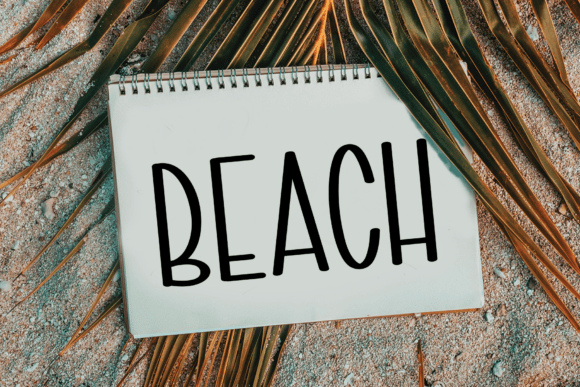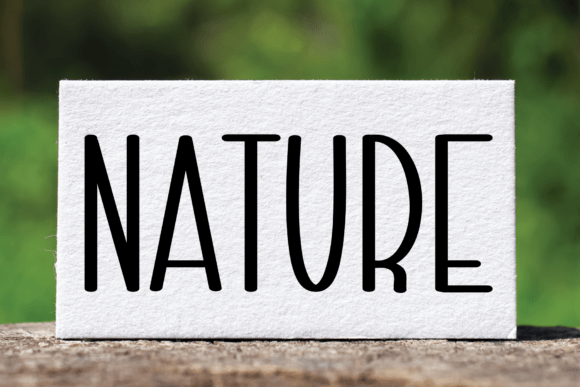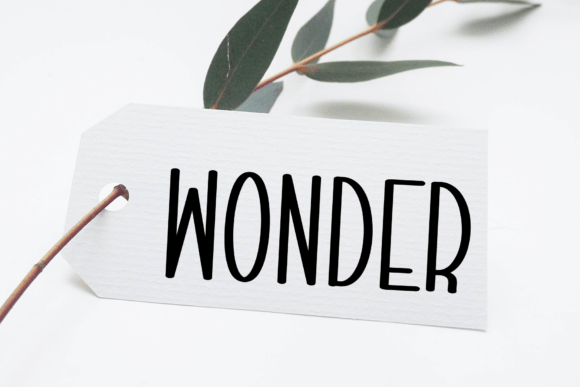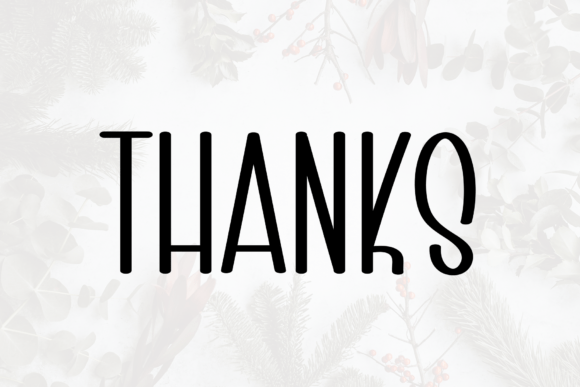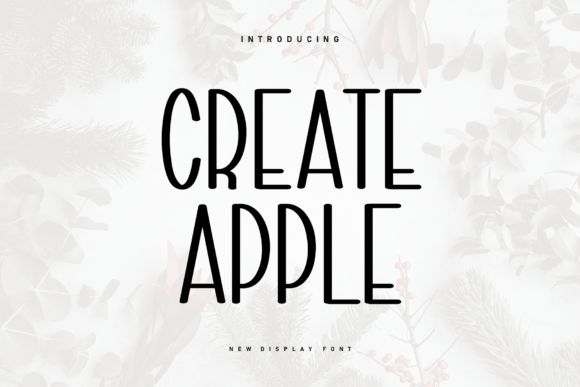
Create Apple Font: A Sweet and Beautiful Handwritten Font
Create Apple is a sweet and beautiful handwritten font that can add a cozy accent to any design project. Featuring characters that dance along the baseline, this font is perfect for designers and crafters who want to add a personal touch to their work. In this article, we’ll explore the features and benefits of Create Apple font, and provide tips on how to use it effectively in your designs.
What is Create Apple Font?
Create Apple font is a handwritten font that is designed to resemble the casual, yet elegant handwriting of a skilled artist. The font features characters that are carefully crafted to dance along the baseline, creating a sense of movement and fluidity. This unique feature makes Create Apple font stand out from other fonts, and gives it a distinctive charm that is hard to resist.
Features of Create Apple Font
• Handwritten style: Create Apple font is a handwritten font that is designed to look like it was written with a pen or pencil. This gives it a personal and informal feel that is perfect for designs that require a touch of warmth and personality.
• Dancing characters: The characters in Create Apple font are designed to dance along the baseline, creating a sense of movement and fluidity. This feature adds a playful and whimsical touch to the font, making it perfect for designs that require a bit of personality.
• Cozy accent: Create Apple font has a cozy and inviting feel that makes it perfect for designs that require a warm and welcoming touch. This font is ideal for designs that require a personal and informal feel, such as handmade crafts, DIY projects, and social media graphics.
Benefits of Using Create Apple Font
Create Apple font offers a range of benefits for designers and crafters, including:
• Unique and distinctive: Create Apple font is a unique and distinctive font that can help your designs stand out from the crowd. Its dancing characters and handwritten style make it a one-of-a-kind font that is sure to grab attention.
• Easy to read: Despite its playful and whimsical feel, Create Apple font is easy to read and understand. This makes it perfect for designs that require a clear and concise message, such as headings, titles, and captions.
• Versatile: Create Apple font is a versatile font that can be used in a range of designs, from handmade crafts and DIY projects to social media graphics and marketing materials.
Tips for Using Create Apple Font
Here are some tips for using Create Apple font effectively in your designs:
• Use it sparingly: Create Apple font is a bold and eye-catching font, so it’s best to use it sparingly to avoid overwhelming your design. Use it for headings, titles, and captions, and pair it with a simpler font for body text.
• Pair it with other fonts: Create Apple font pairs well with a range of other fonts, including sans-serif fonts, and script fonts. Experiment with different pairings to find the one that works best for your design.
• Experiment with colors: Create Apple font looks great in a range of colors, from bright and bold to soft and pastel. Experiment with different colors to find the one that works best for your design.
Create Apple font is a sweet and beautiful handwritten font that can add a cozy accent to any design project. Its unique features, such as dancing characters and a handwritten style, make it a standout font that is sure to grab attention. With its ease of use, versatility, and range of benefits, Create Apple font is a must-have for designers and crafters who want to add a personal touch to their work.
Whether you’re creating handmade crafts, DIY projects, or social media graphics, Create Apple font is the perfect choice. So why not give it a try and see how it can elevate your designs to the next level?